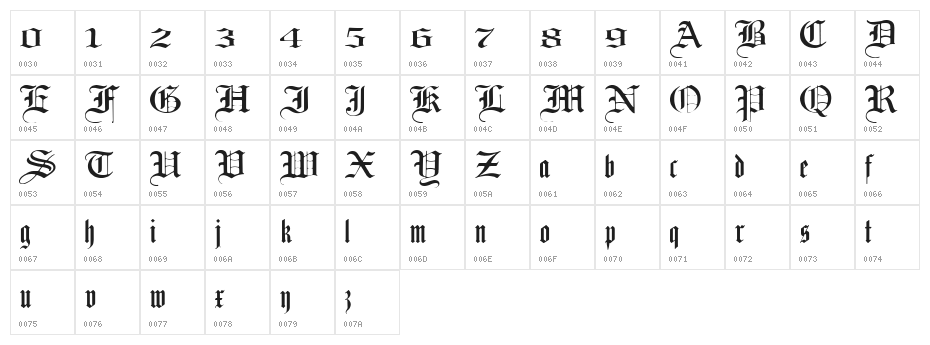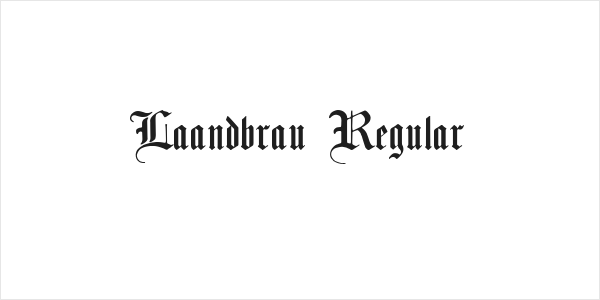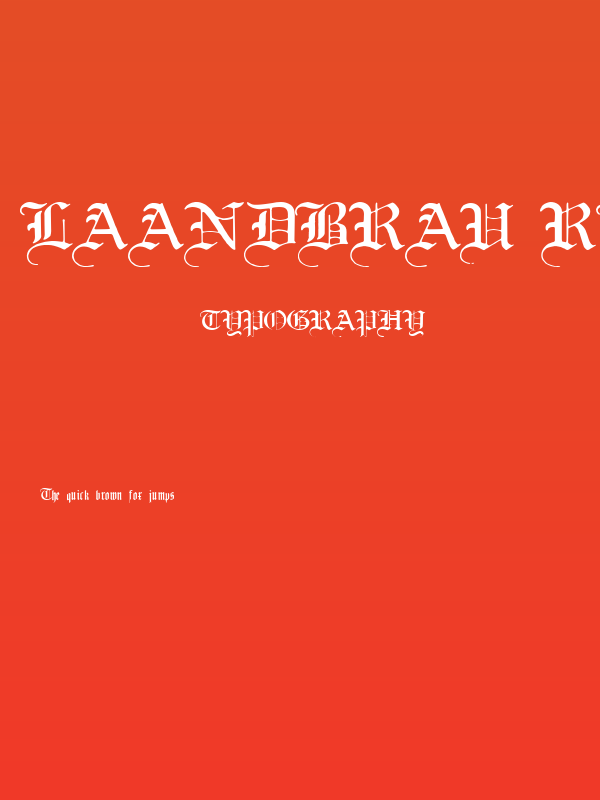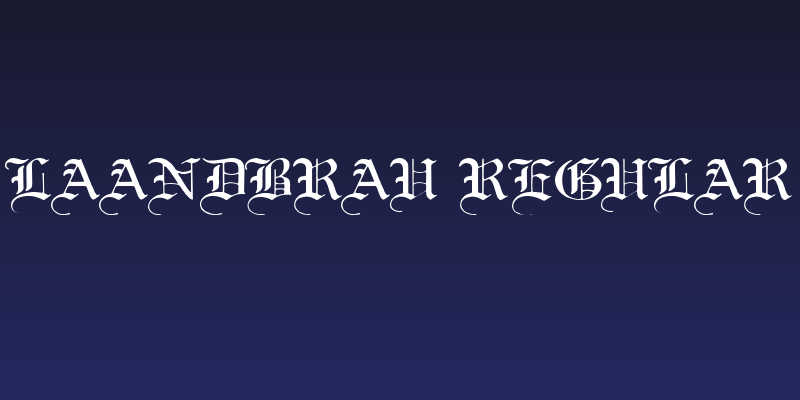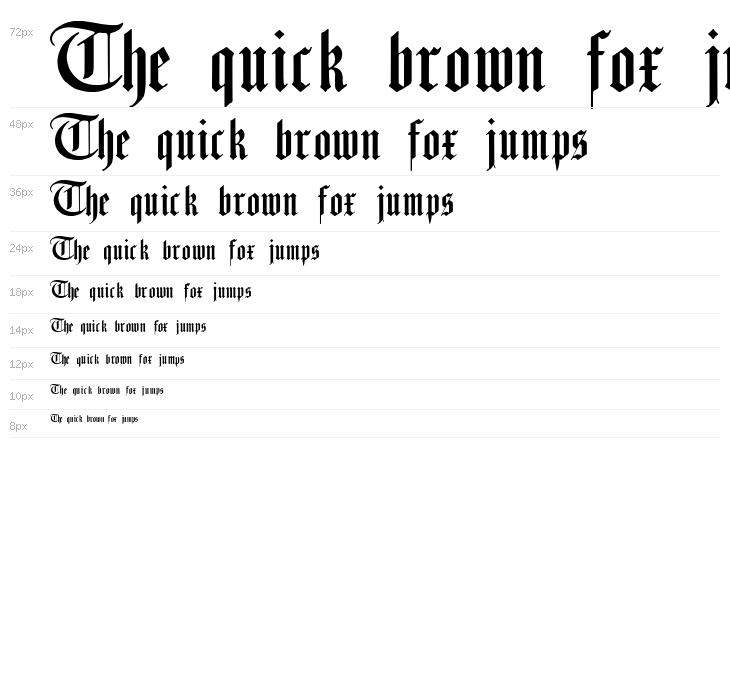
Laandbrau Regular Font
Laandbrau Regular Description
This font features a traditional blackletter style, characterized by its ornate and intricate design. The letters have sharp, angular lines with dramatic flourishes and a distinct medieval appearance. The uppercase letters are particularly elaborate, with extended serifs and decorative elements that give them a gothic feel. The lowercase letters maintain the same stylistic elements but are slightly more subdued, allowing for readability while still retaining the font's unique character. The numbers follow the same design principles, providing a cohesive look across all characters. This font is ideal for projects that require a historical or classical touch, such as invitations, certificates, or branding for products that emphasize tradition and heritage.
| Proposed Projects | Ideal for historical-themed projects, invitations, certificates, and branding emphasizing tradition. |